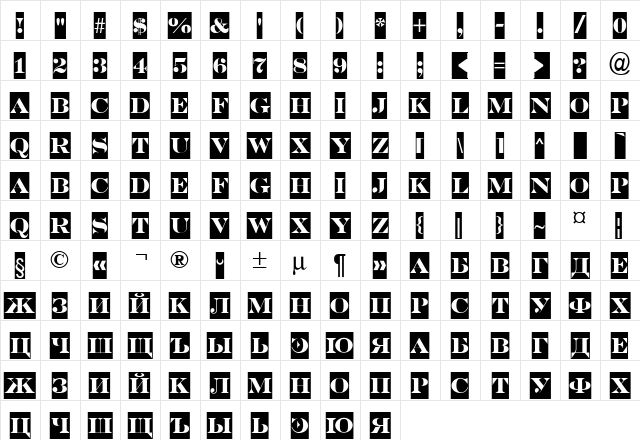
a_SeriferTitulCm Demi
Design Context for a_SeriferTitulCm Typeface
a_SeriferTitulCm carries the refined structure of traditional serif typography, with bracketed terminals and considered proportions that communicate credibility and craft.